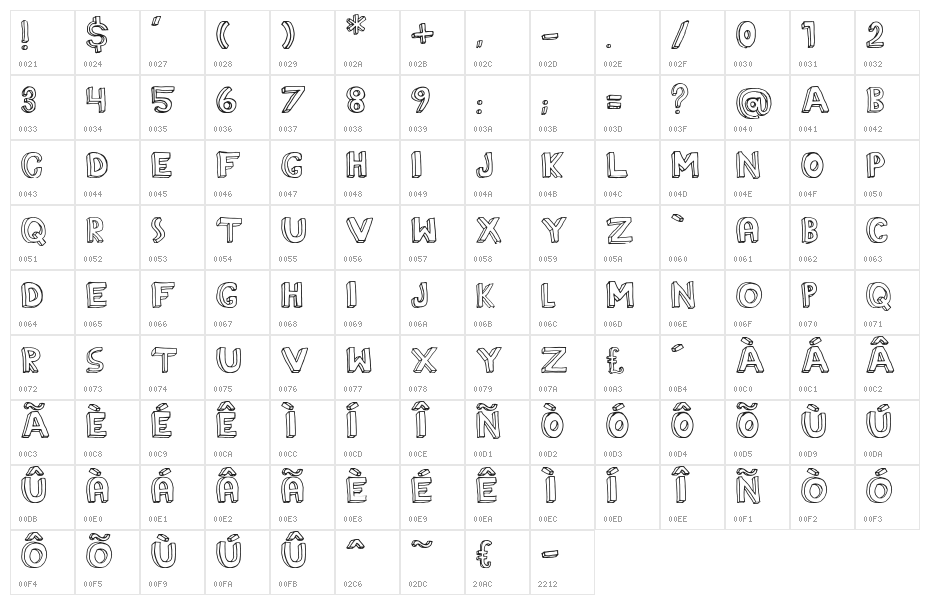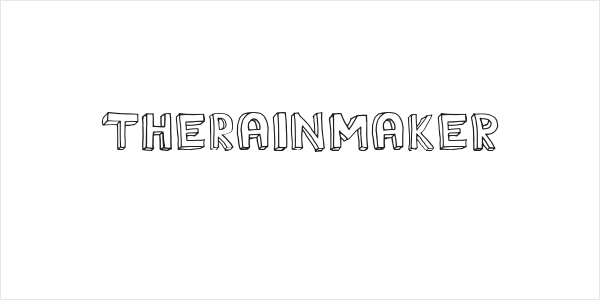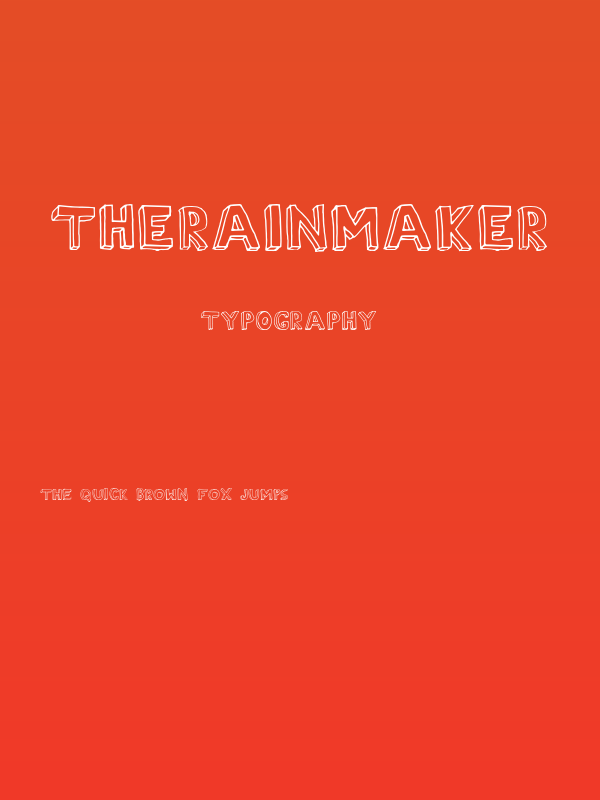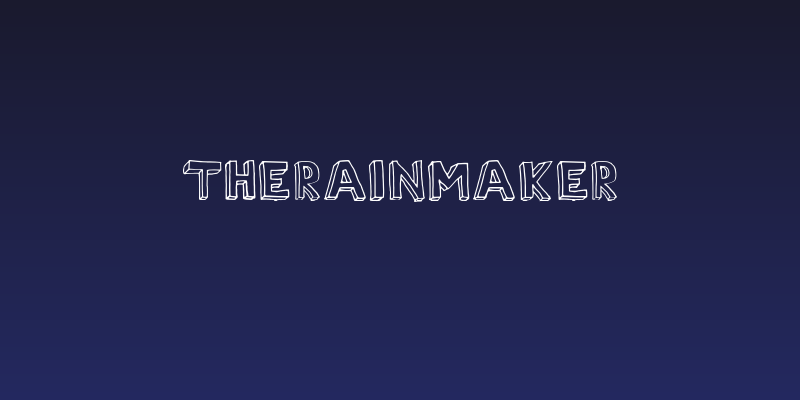
TheRainmaker Font
TheRainmaker Description
This font features a playful, hand-drawn style with a three-dimensional effect. Each character is outlined with a bold, black line, giving it a cartoonish and dynamic appearance. The letters are slightly irregular, adding a whimsical and informal touch. The font is highly decorative, making it suitable for creative and fun projects. The numbers and special characters maintain the same playful style, ensuring consistency across all elements.
| Overall Style | Playful, Cartoonish |
| Proposed Projects | Ideal for children's books, comic strips, playful branding, and creative posters. |